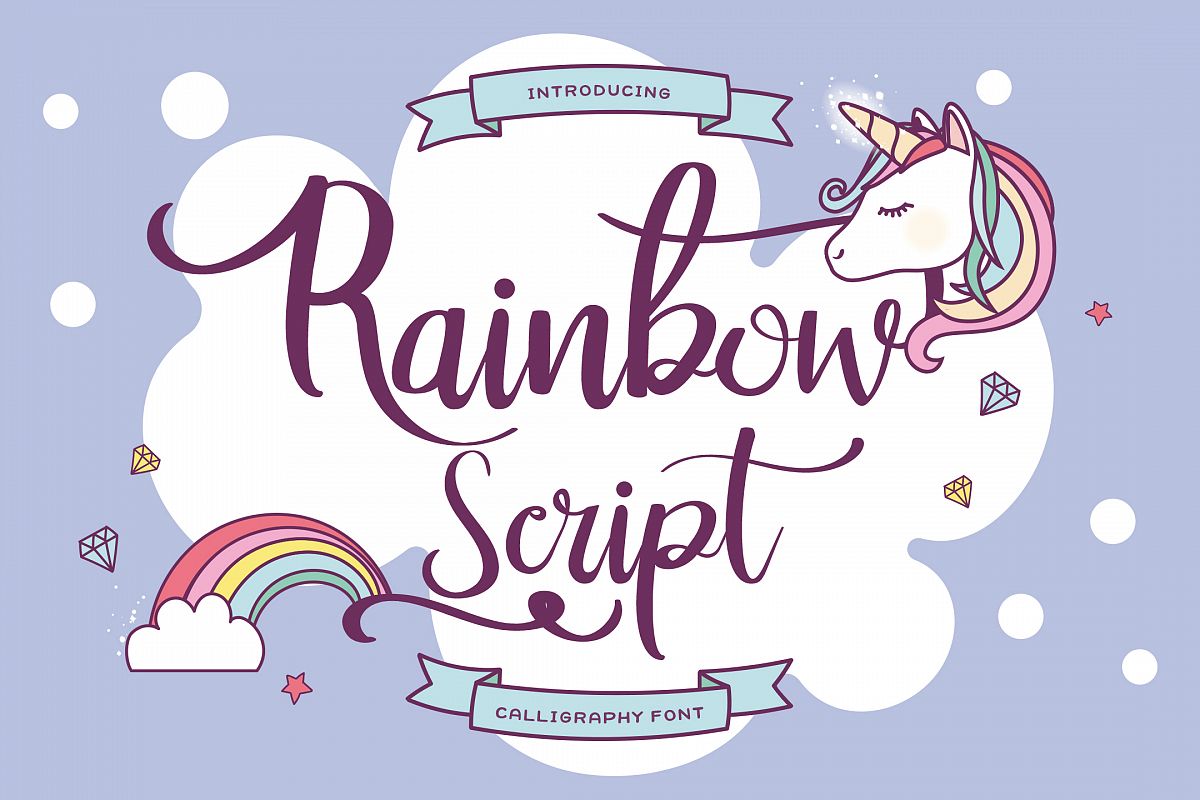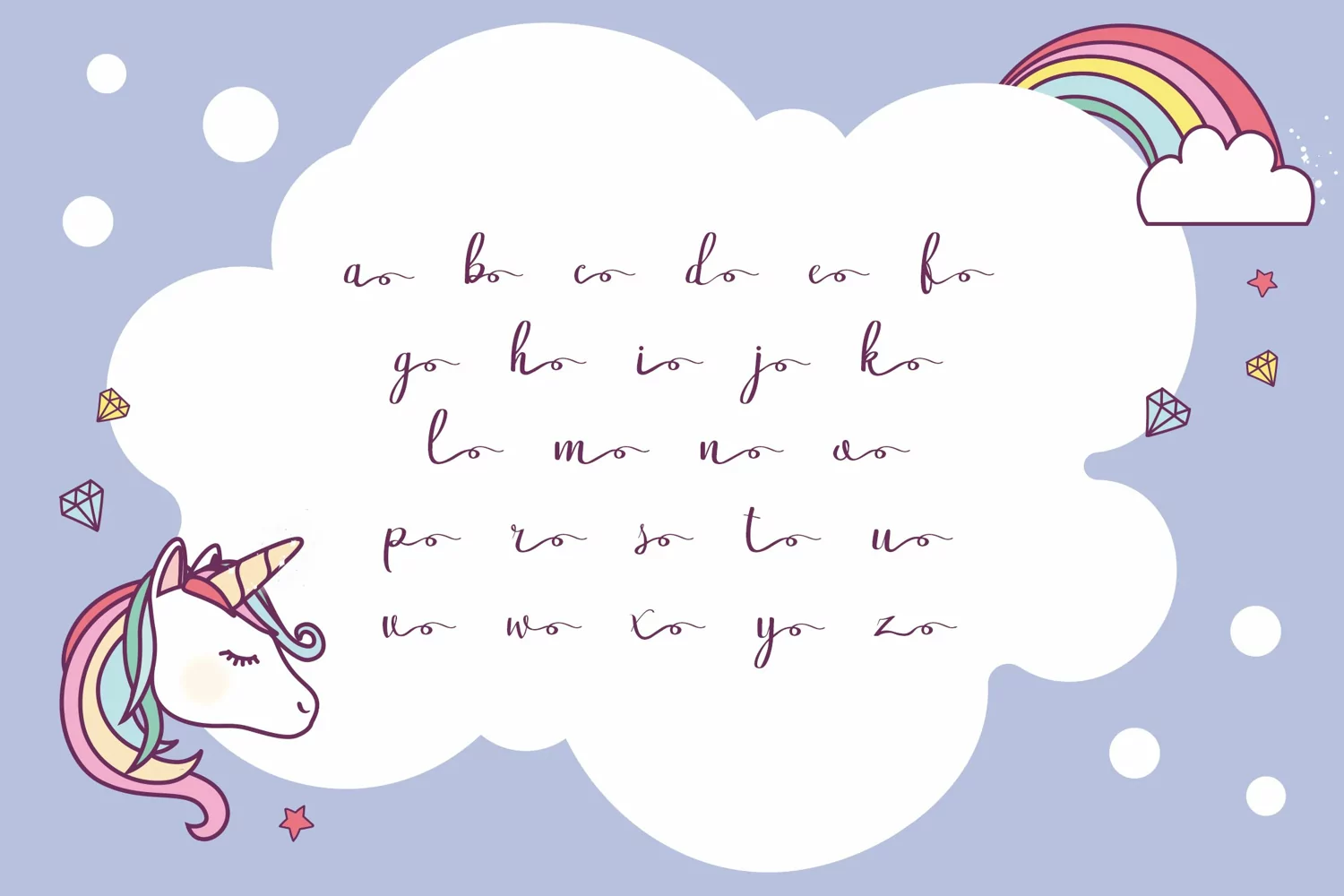
Rainbow Script is a fun, dynamic and swirly script font
perfect for lots of different projects. It's flowing letters and extra glyphs
make this the perfect companion for all your design work. The font is PUA
encoded making all extra swirls and swashes fully accessible.